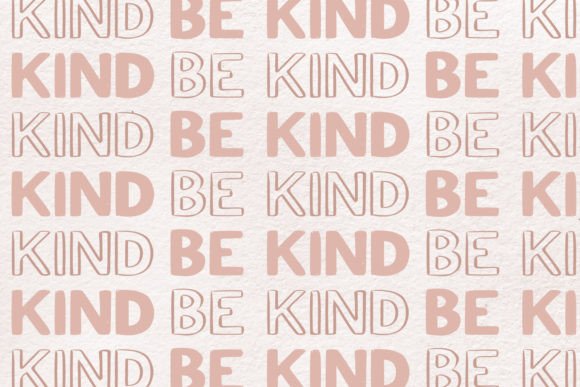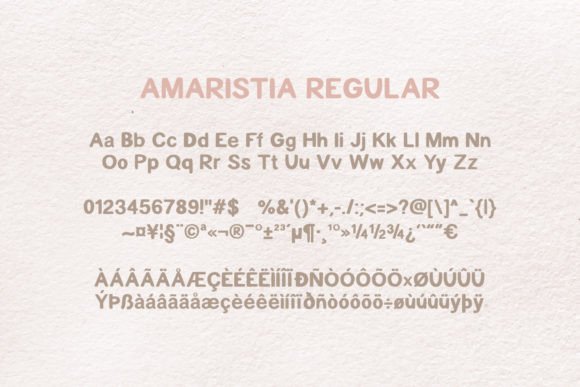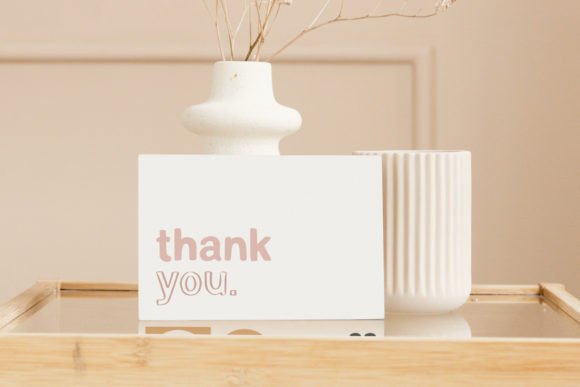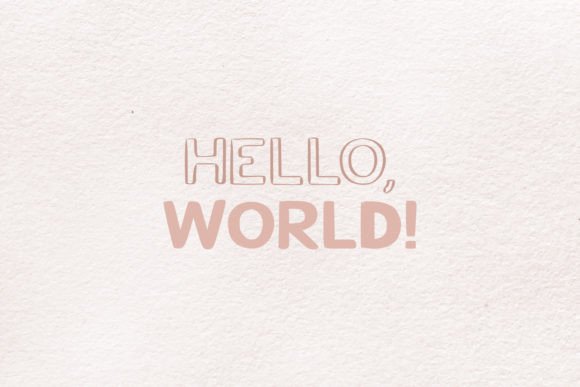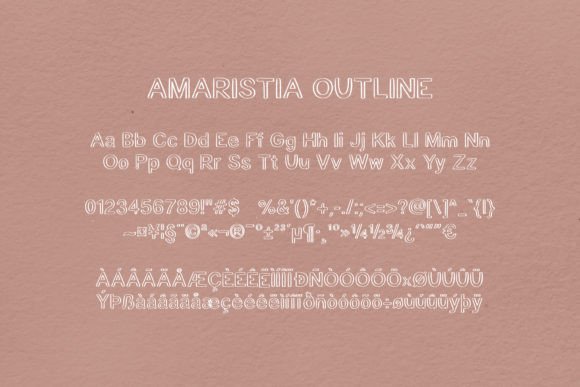
Introducing Amaristia Font: Elevate Your Designs with Elegance and Versatility
In the world of typography, a font can make or break a design. It’s the foundation upon which the entire visual aesthetic is built. For designers and crafters looking to add a touch of sophistication and style to their projects, Amaristia Font is an excellent choice. This elegant yet versatile handwritten sans serif font is perfect for a wide range of applications, from posters and printed quotes to digital designs and more.
What is Amaristia Font?
Amaristia Font is a beautifully crafted handwritten sans serif font that exudes elegance and versatility. It comes in two distinct versions: a solid version and an outline version. This dual offering provides designers with the flexibility to experiment with different visual effects, ensuring their projects stand out in a crowd.
Key Features of Amaristia Font
- Elegant and Versatile: Amaristia Font boasts an elegant appearance that can adapt to various design contexts, making it a valuable addition to any designer’s toolkit.
- Dual Version: The font comes in two versions – a solid version for straightforward, impactful text and an outline version for adding a touch of sophistication and creativity.
- Handwritten Sans Serif: The handwritten nature of Amaristia adds a personal touch to designs, while its sans serif characteristics ensure clarity and readability.
- Wide Range of Applications: From posters and printed quotes to digital designs, Amaristia Font is suitable for any project requiring a stylish and sleek look.
Applications of Amaristia Font
The versatility of Amaristia Font makes it an ideal choice for various design projects. Here are some of the areas where this font truly shines:
- Posters: Create eye-catching posters for events, promotions, or informational campaigns with Amaristia’s elegant and clear lettering.
- Printed Quotes: Add a touch of sophistication to inspirational or thought-provoking quotes, making them perfect for social media posts, flyers, or wall decor.
- Digital Designs: Enhance your digital content, such as blog headers, social media graphics, or website elements, with a stylish and modern font that captures attention.
- Crafting and DIY Projects: For crafters and DIY enthusiasts, Amaristia Font can be used in handmade cards, journaling, and other paper crafts, adding a personal and elegant touch.
Why Choose Amaristia Font?
Choosing a font for a project can be overwhelming, given the numerous options available. However, Amaristia Font stands out for several reasons:
- Unique Aesthetic: Its handwritten sans serif design offers a unique aesthetic that can differentiate your projects from others.
- Easy to Read: Despite its elegant and artistic nature, Amaristia Font maintains high readability, making it suitable for both headings and body text.
- Versatility: The availability of both solid and outline versions makes it incredibly versatile, allowing for a wide range of design possibilities.
Amaristia Font is a stylish, elegant, and versatile handwritten sans serif font that can elevate any design project. Its dual version offering, consisting of a solid and an outline version, provides designers with the flexibility to experiment with different visual effects. Whether you’re working on posters, printed quotes, digital designs, or crafting and DIY projects, Amaristia Font is an excellent choice for adding a touch of sophistication and style. With its unique aesthetic, readability, and versatility, Amaristia Font is sure to become a staple in your design toolkit.